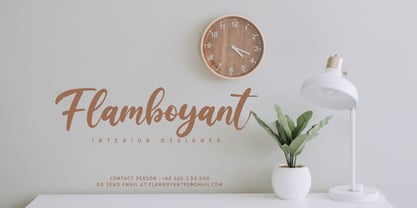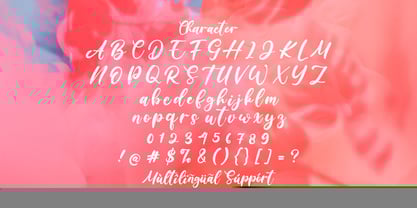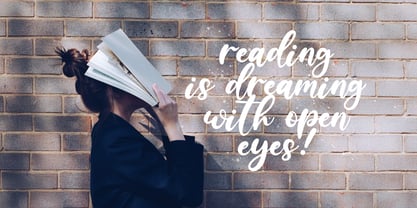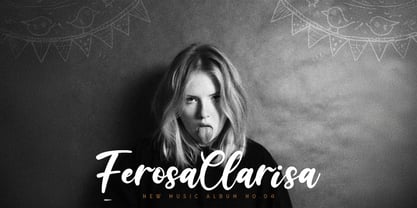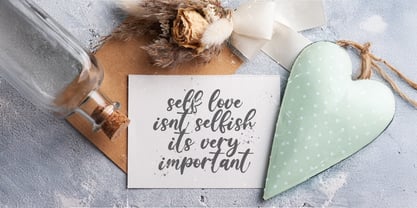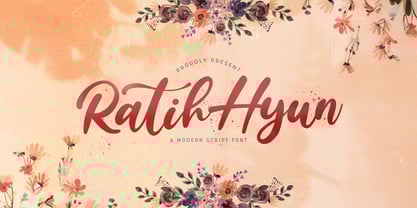
The Ratih Hyun Font Family was designed by Virgiawan Listanto and published by Stringlabs Creative Studio. Ratih Hyun contains 1 styles.
Ratih Hyun is a beautifully crafted calligraphy font that radiates warmth and charm. With its delicate, flowing strokes and graceful curves, this font is perfect for adding a touch of elegance and romance to your designs.